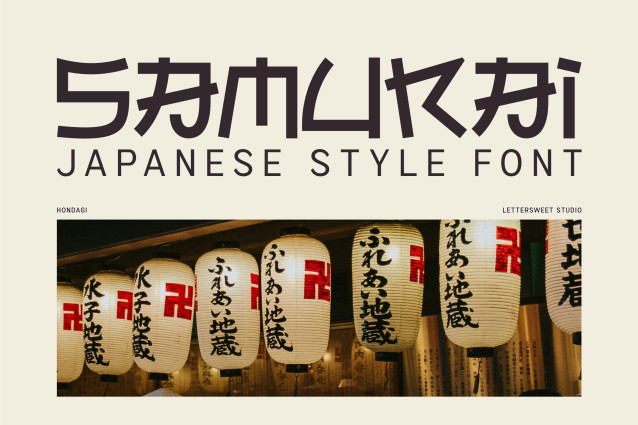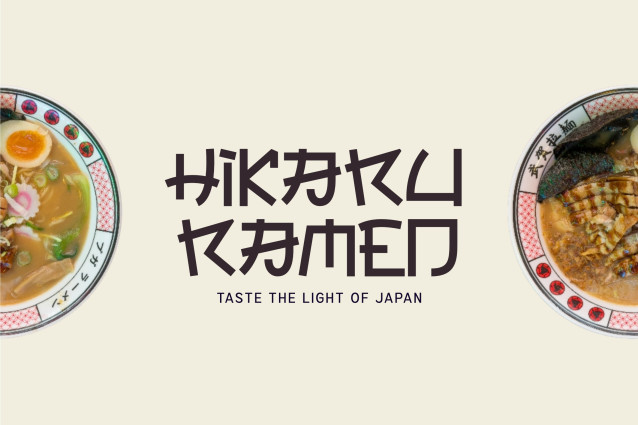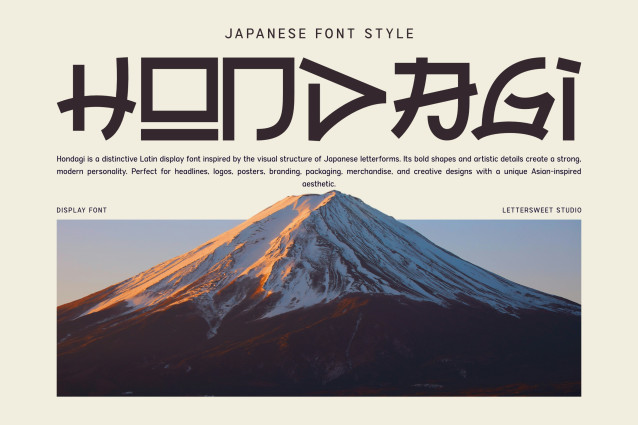
Hondagi is a distinctive Japanese-inspired display font that combines Latin letterforms with bold shapes influenced by the visual structure and aesthetics of Japanese typography. Its strong construction and expressive details give every word a memorable and eye-catching personality.
The letterforms feature a unique combination of bold strokes, sharp angles, geometric structures, and artistic details. Several characters are designed to echo the rhythm and appearance of Japanese writing while remaining recognizable as Latin letters. This creates a typeface that feels modern, experimental, artistic, and distinctly Asian-inspired.
With its bold and unconventional appearance, Hondagi works especially well when typography needs to become the main visual element of a design. Even short words or simple headlines can create a strong impact, making the font ideal for projects that need an instantly recognizable identity.
Hondagi is a great choice for logos, branding, posters, headlines, packaging, editorial layouts, merchandise, apparel, album covers, restaurant branding, Japanese-themed products, anime-inspired projects, streetwear, event graphics, and creative advertising.
Its combination of traditional Japanese visual influences and contemporary design makes Hondagi especially useful for designers who want to create something that feels both cultural and modern. The distinctive character shapes can help brands, products, and promotional designs stand out from more conventional typography.
If you are looking for a font with a bold Japanese aesthetic, strong visual identity, and modern creative personality, Hondagi is designed to bring an unforgettable character to your next project.